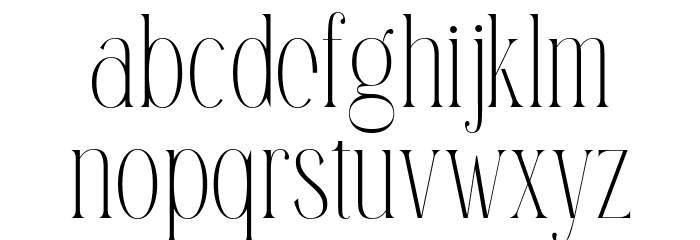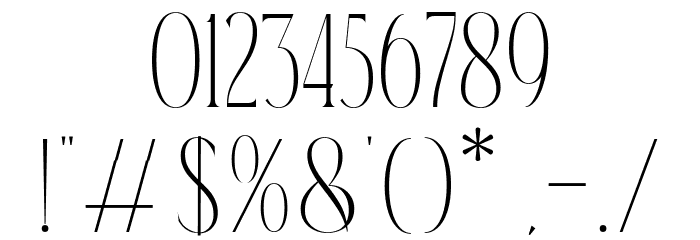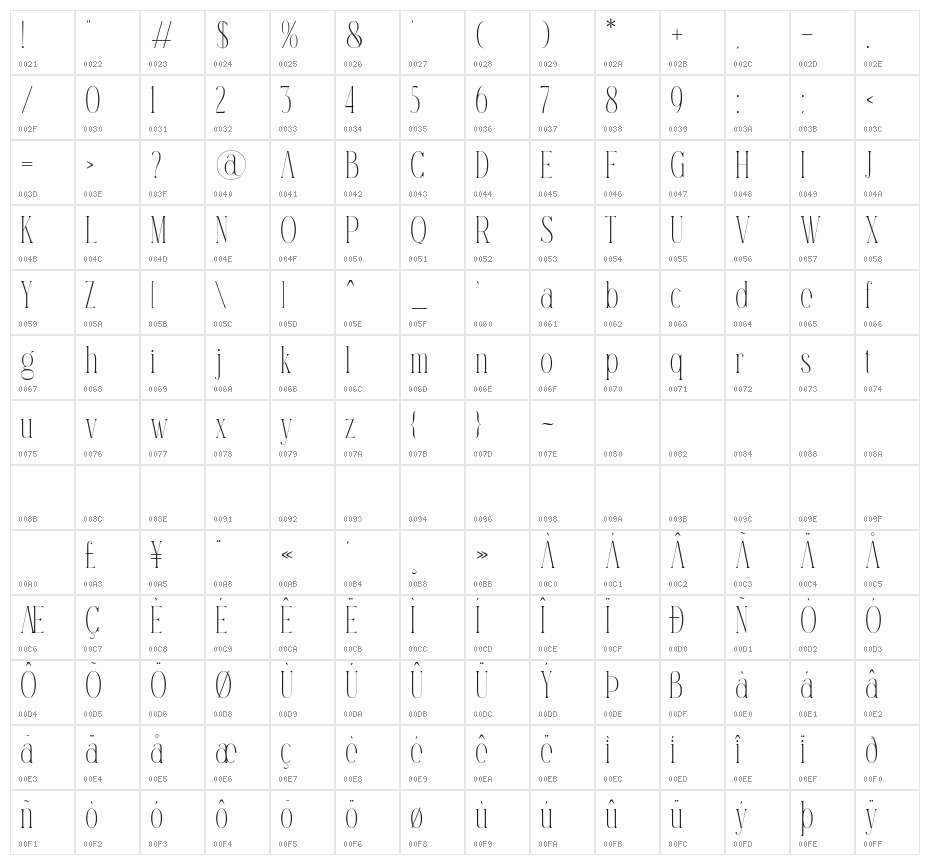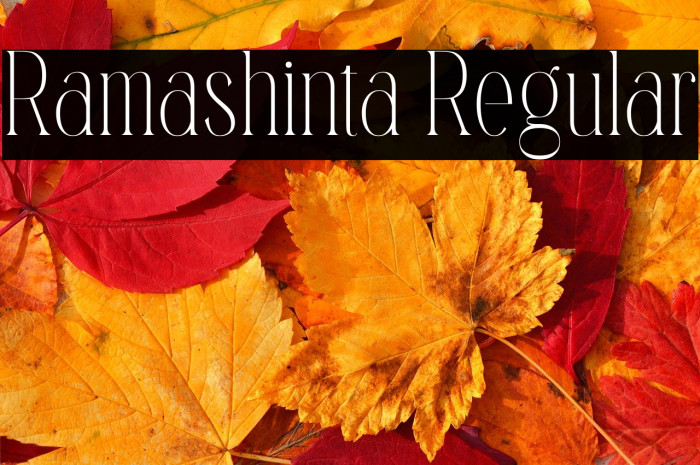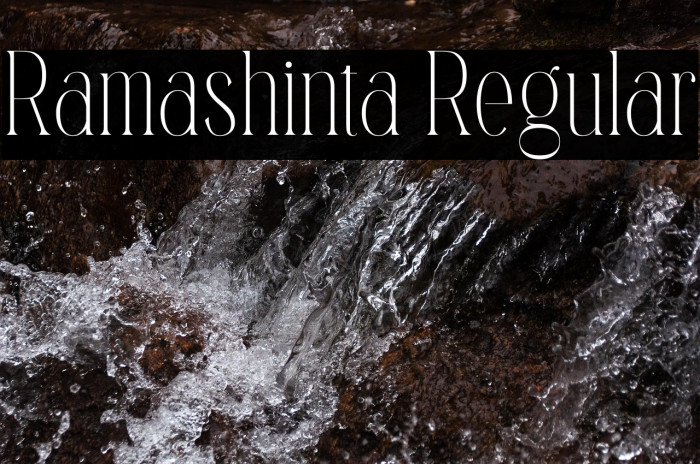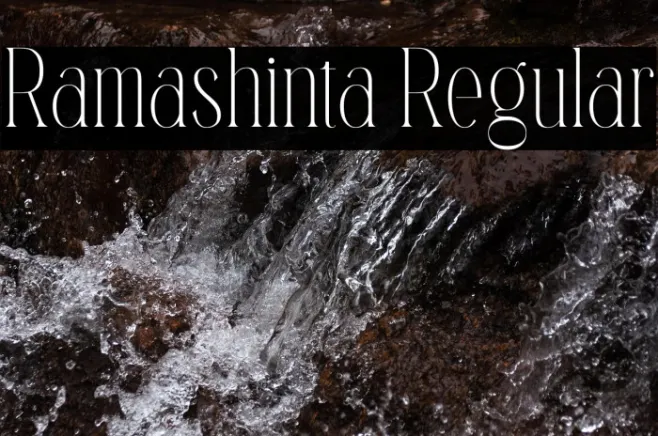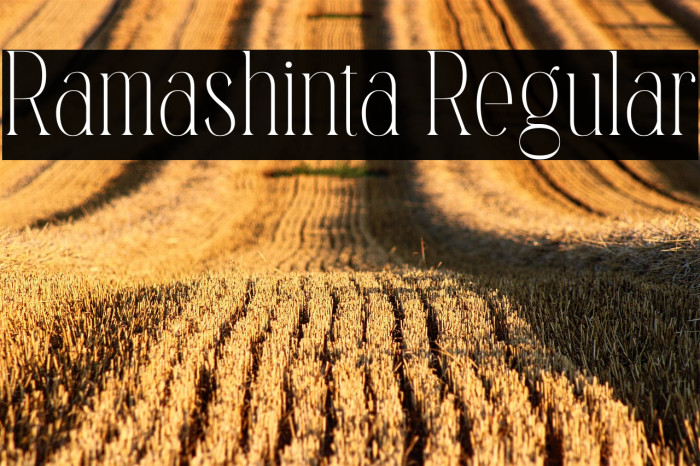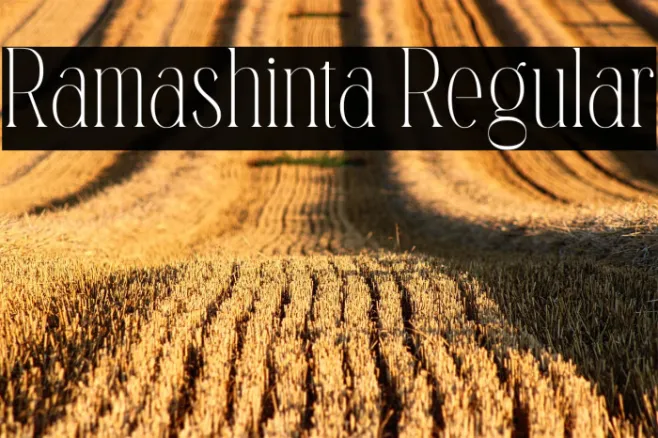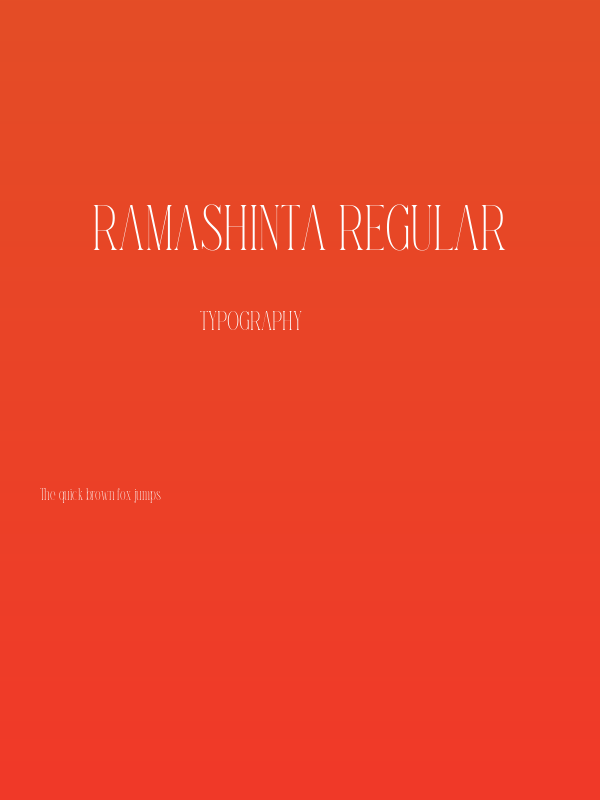
Ramashinta Regular Font
This font exhibits a refined and elegant style, characterized by its tall, narrow letterforms and high contrast between thick and thin strokes. The uppercase letters are particularly elongated, giving a sophisticated and modern appearance. The lowercase letters maintain a consistent style, with a graceful flow that complements the uppercase. The numerals are distinct and maintain the same high contrast, ensuring readability. Special characters are designed with the same attention to detail, making them fit seamlessly with the rest of the typeface.
A refined, high-contrast serif font with elongated letterforms.
- Proposed Projects: Ideal for luxury branding, fashion magazines, elegant invitations, and high-end product packaging.